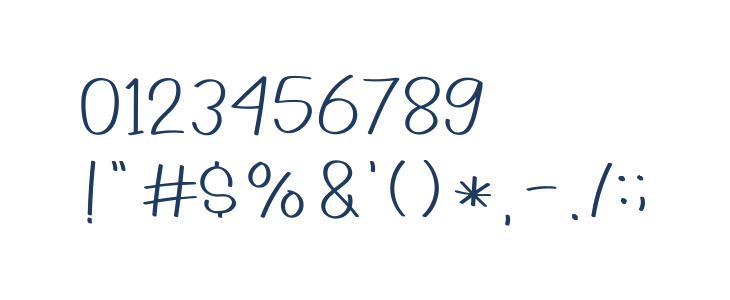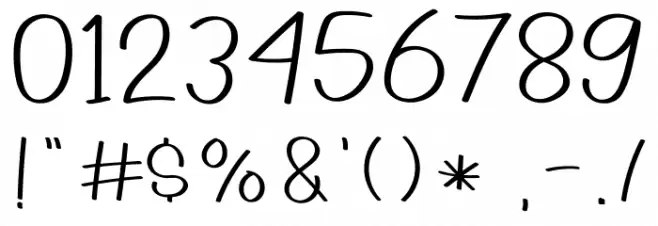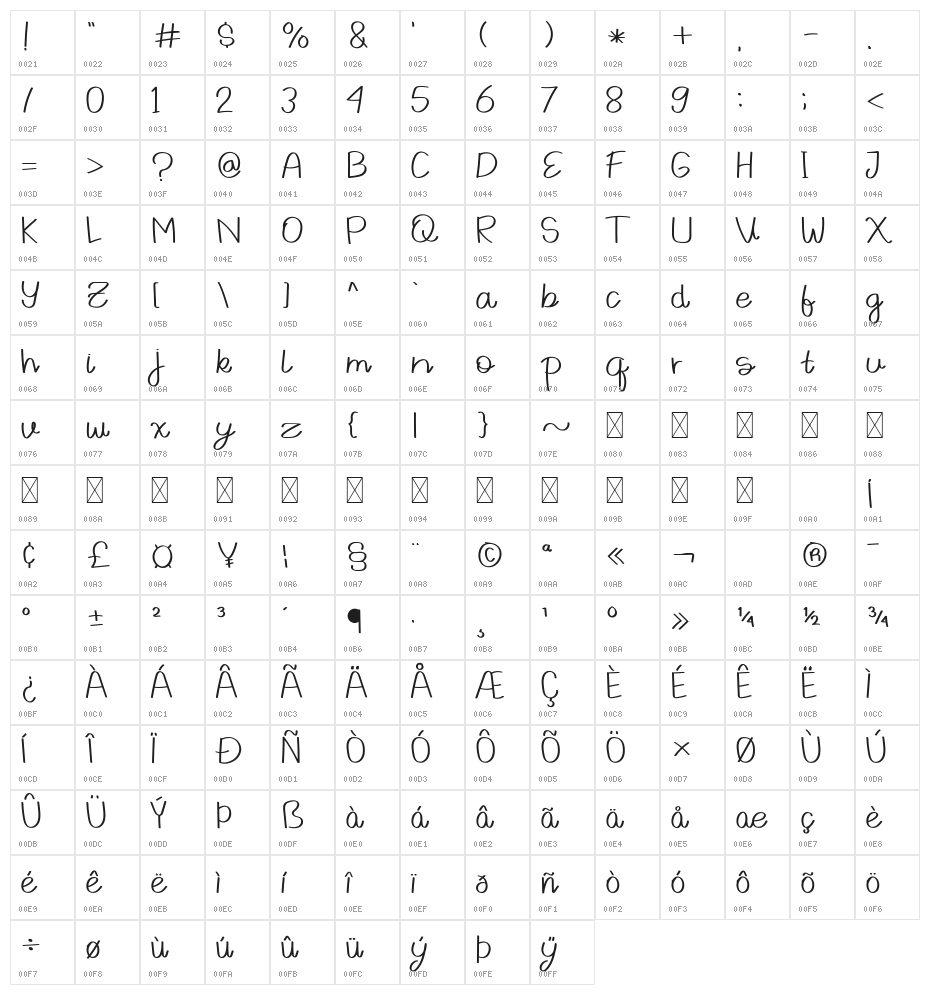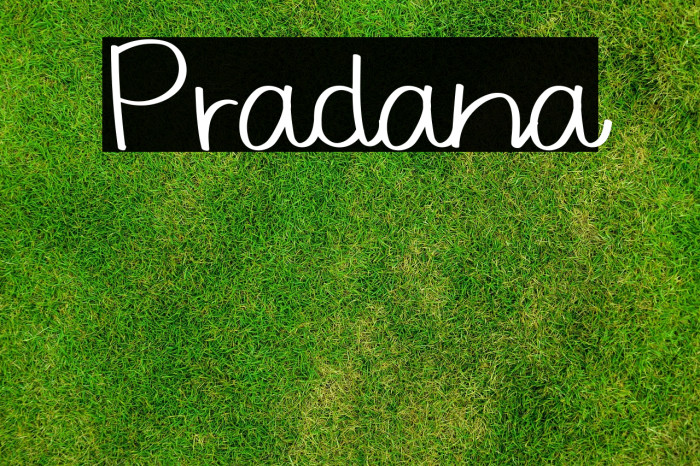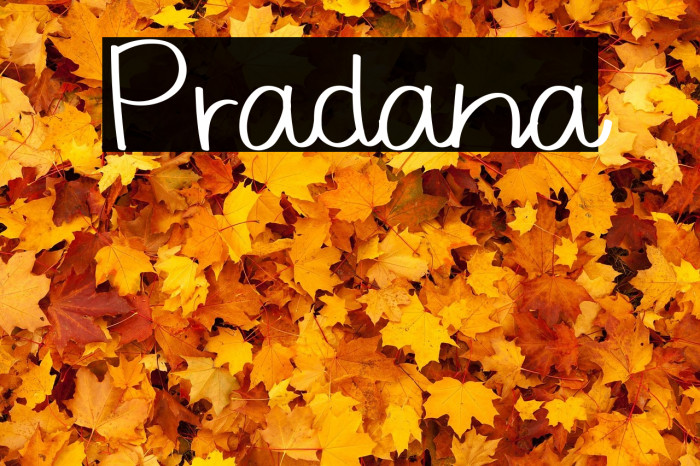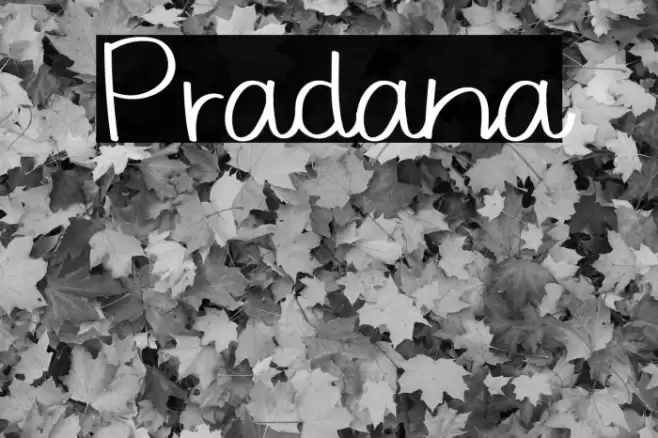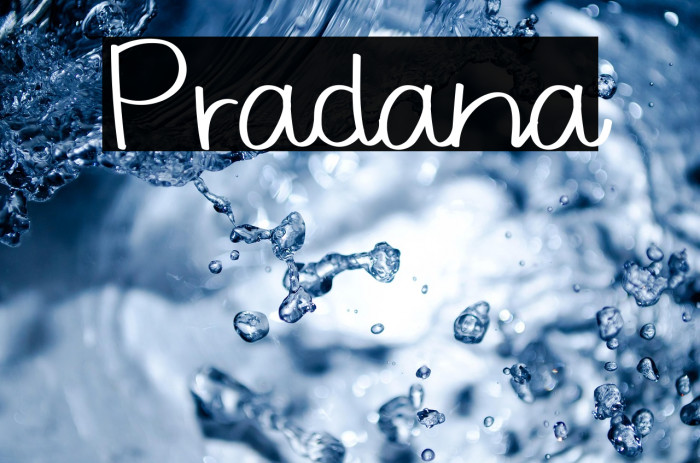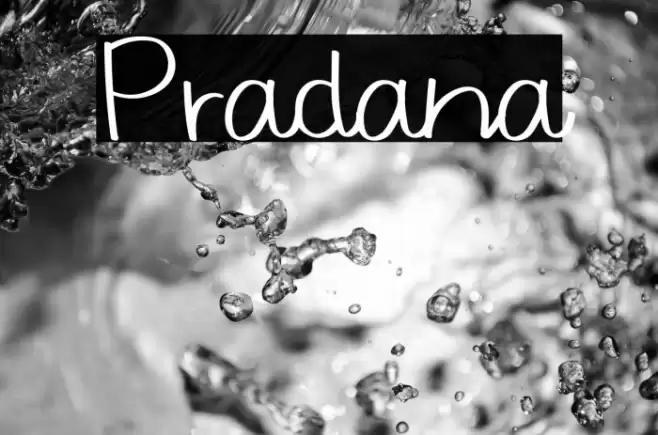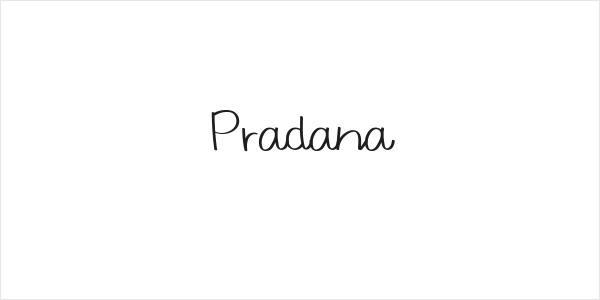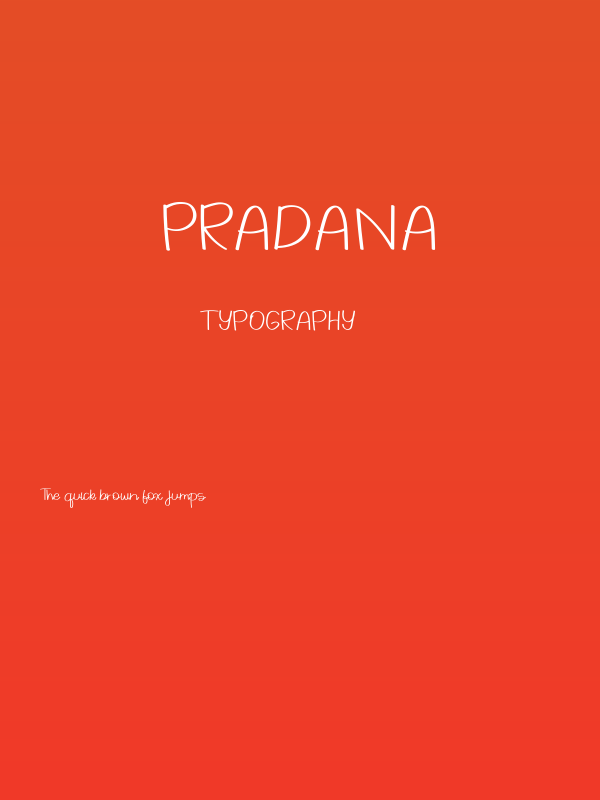
Pradana Font
Pradana Description
This font features a playful and casual handwritten style, characterized by its smooth, flowing lines and slightly irregular letterforms. The uppercase letters are distinct with a slight slant, while the lowercase letters maintain a consistent flow, enhancing readability. The numerals are rounded and align well with the overall style, providing a cohesive look. Special characters are creatively integrated, maintaining the font's whimsical nature. This font is ideal for projects that require a personal touch, such as invitations, greeting cards, or playful branding materials.
| Proposed Projects | Ideal for invitations, greeting cards, playful branding, and personal projects. |